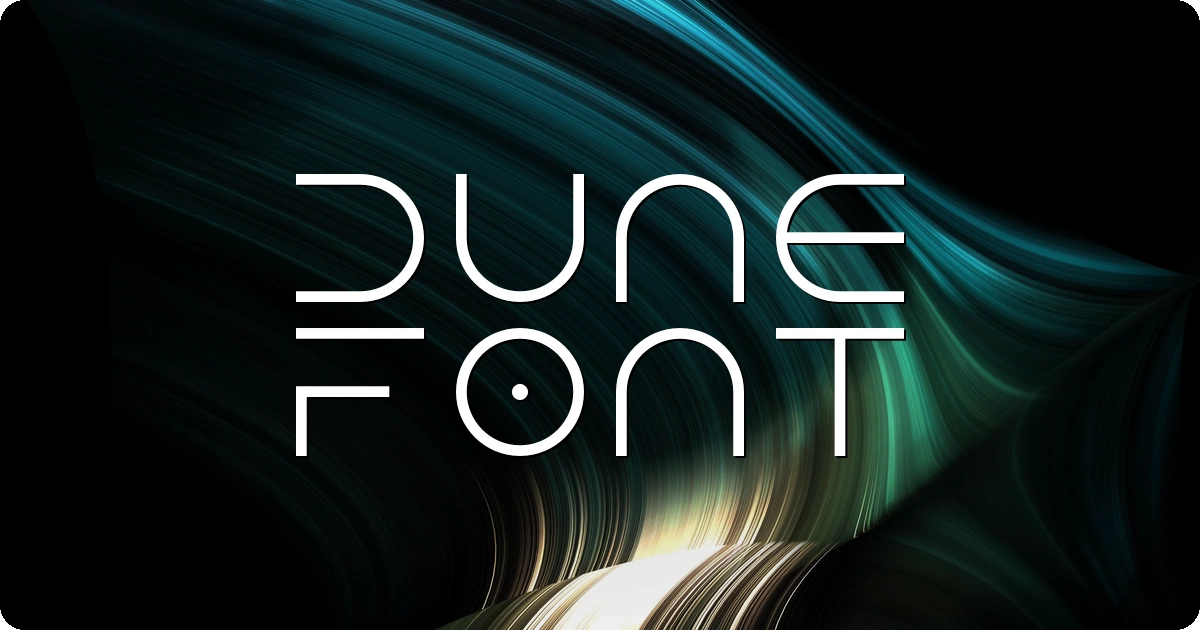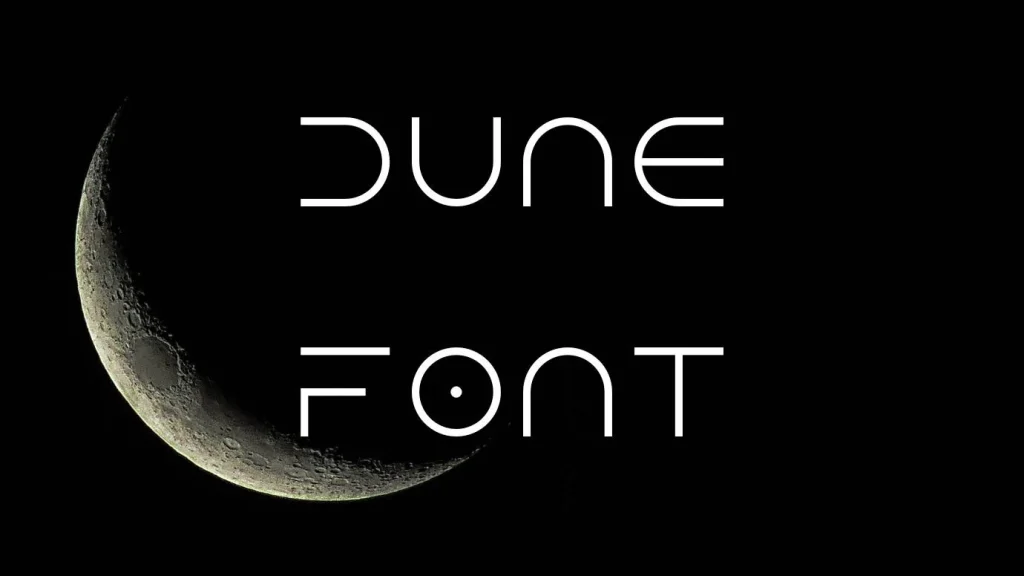
Fontswan designed the Dune Font it is techno design it is a science fiction movie. This typeface has been utilized throughout the years and on every platform, it has received a mind-blowing reaction to become one of the most famous fonts.
The typeface quickly acquired popularity when it was released because people started recognizing it and using it in their projects. The typeface does have a clean, usual appearance that makes it perfect for projects that need a unique feel.
It is a fantastic option for projects that require an original and creative touch. This contemporary typeface may be used to create eye-catching trademarks for many businesses and organizations.
Why Should I Choose Dune Font?
You should choose this font for your projects because this typeface creates appropriate flyers, posters, and advertising for your activities. Anywhere you choose, you may utilize it for text designs and the newest fashion trends.
This contemporary typeface works best when used for quotes, store names, articles, ebook layouts, comic covers, and many forms of titling. You can utilize this font with the basic font. With the aid of this typeface, you may create stunning thumbnails.
Through this text style users can make fantastic designs for their upcoming projects people utilize different variants and styles in webpages, layouts, and other contexts to create visually appealing and interesting designs.
Is the Dune typeface easy to read?
This typeface’s significance is amazing. It could be a very flexible style that can be used for many different things.
Is Dune Font user-friendly?
I love the font design since it is very simple to use. Use this textual style in a project that needs a unique and attractive design.